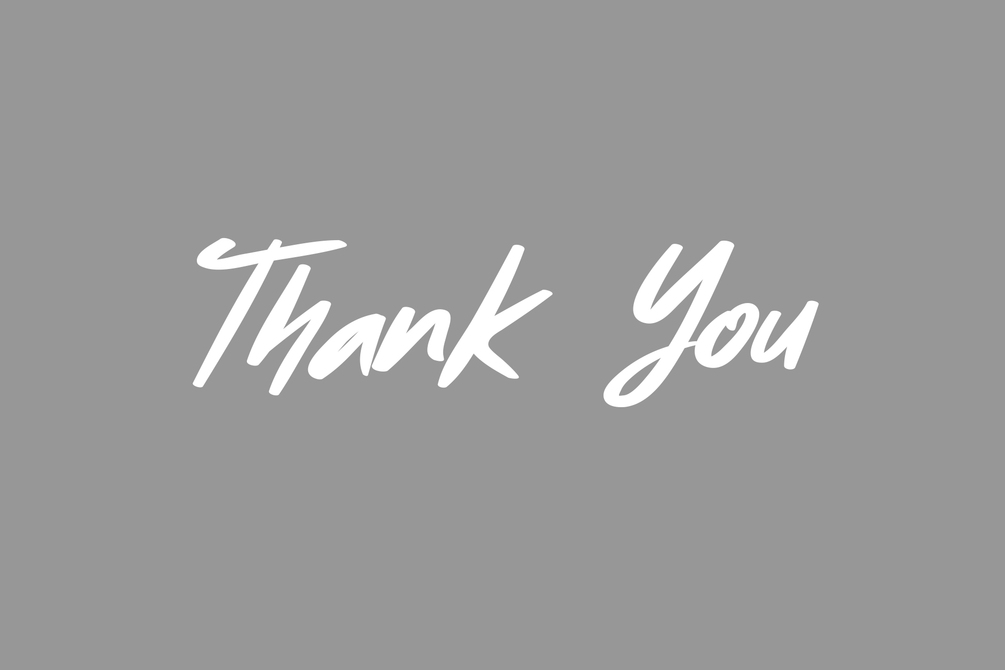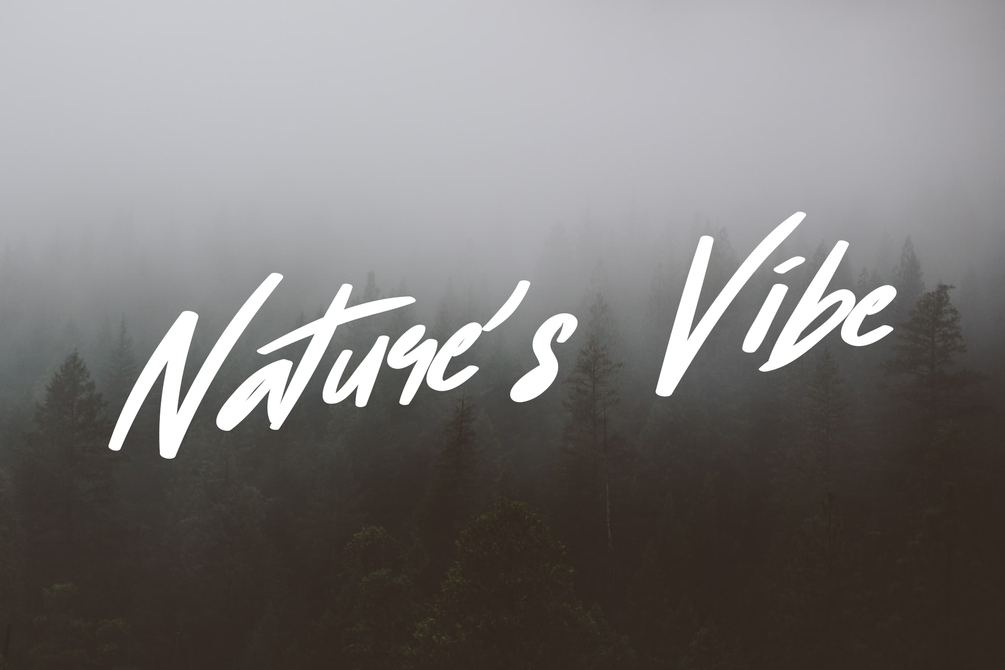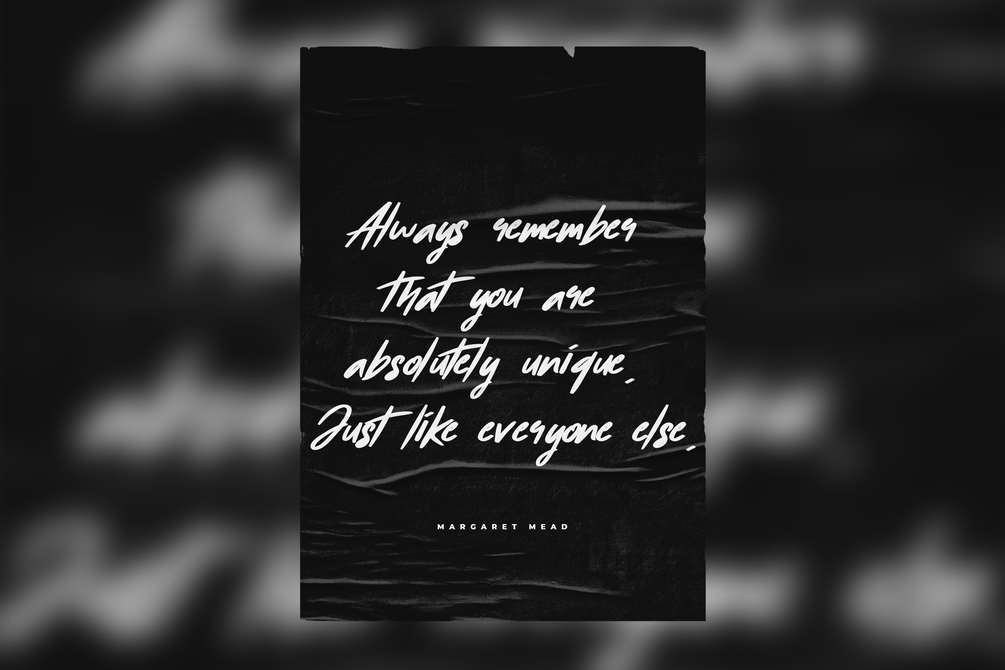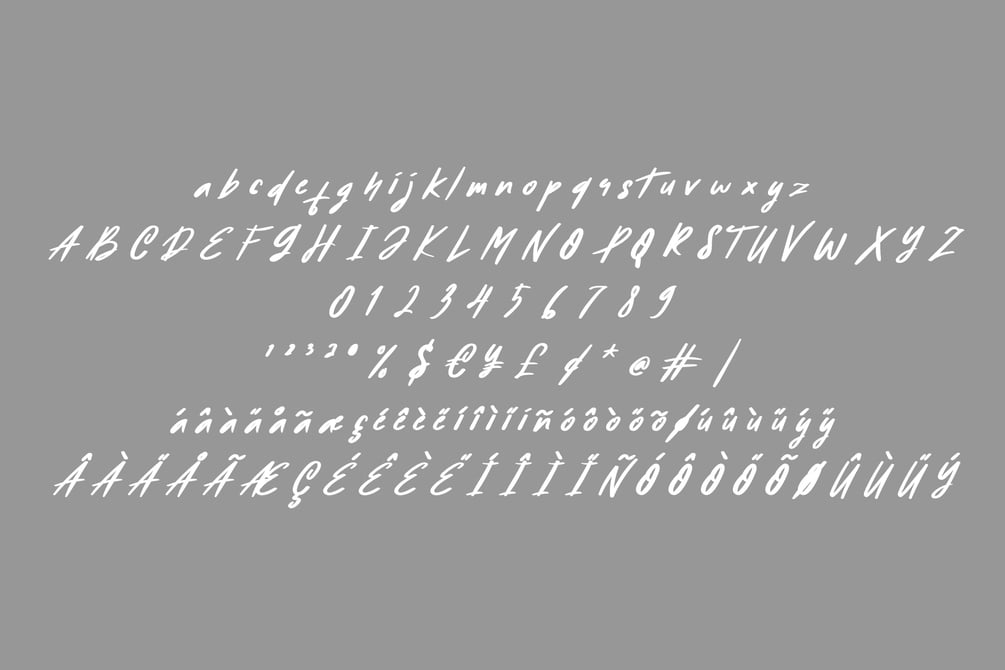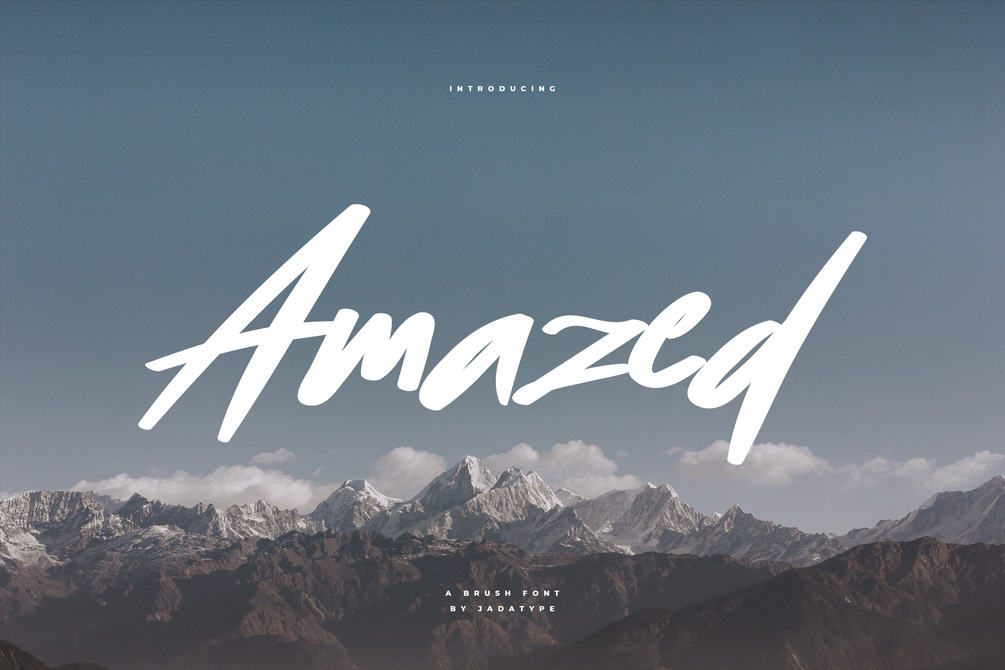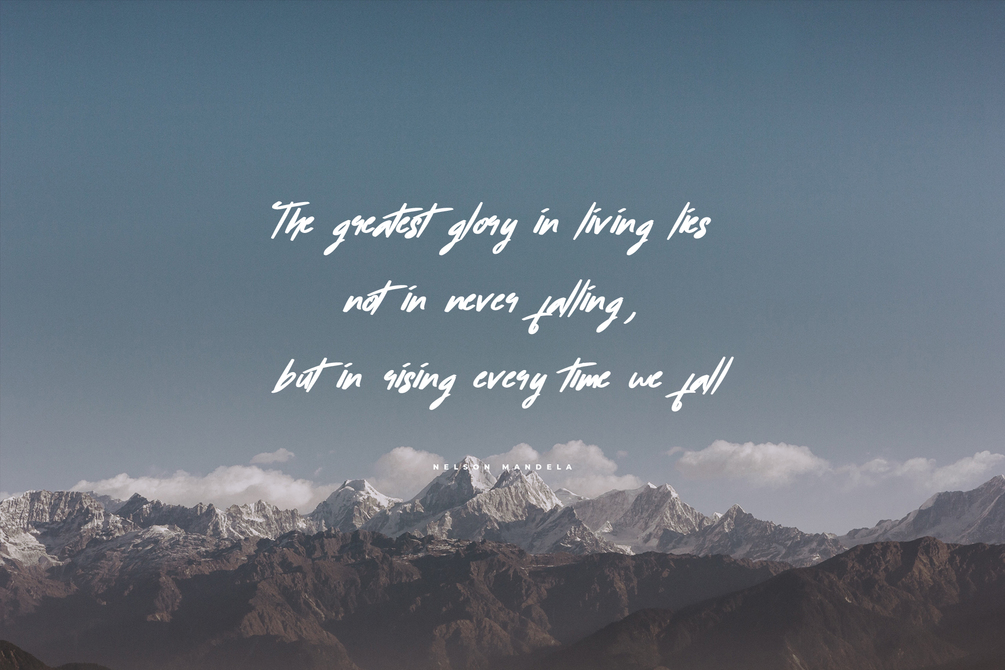
Amazed Font
Amazed is a font with a display brush that has an energetic and movement impression. suitable for your design needs, crafts, t-shirt designs, social media, typography, posters, advertisements, and so on. contains standard english letters and some that support multilingual.